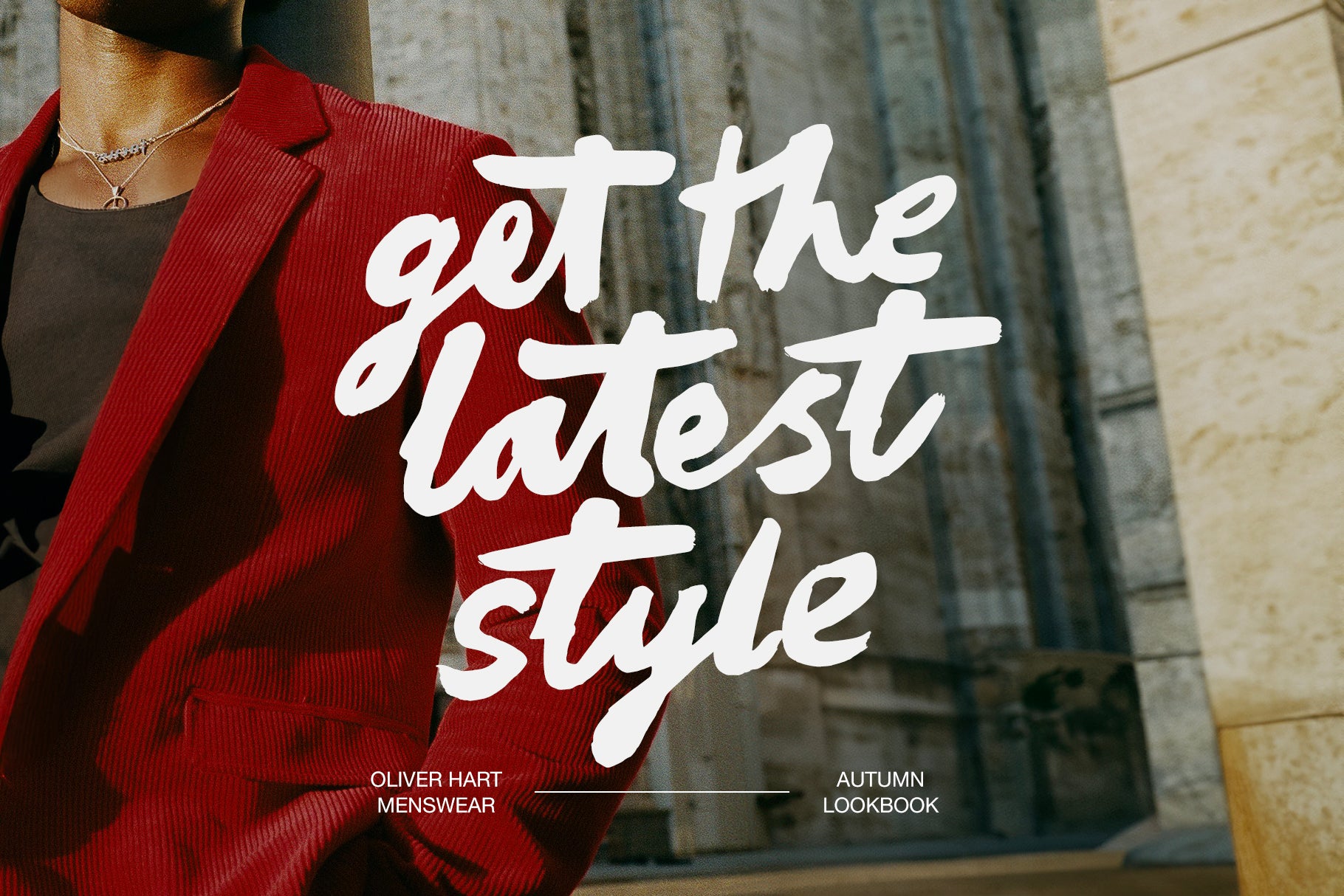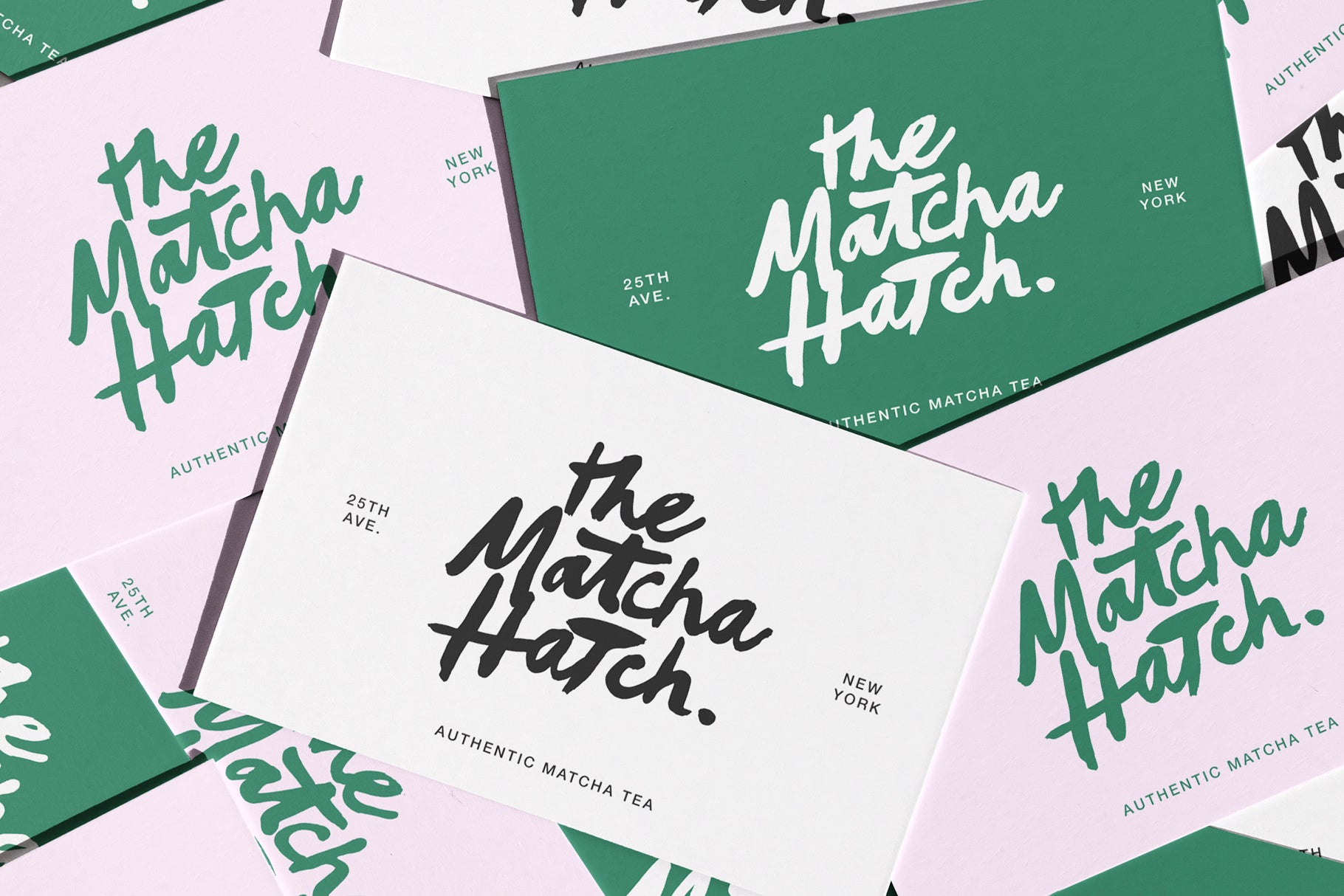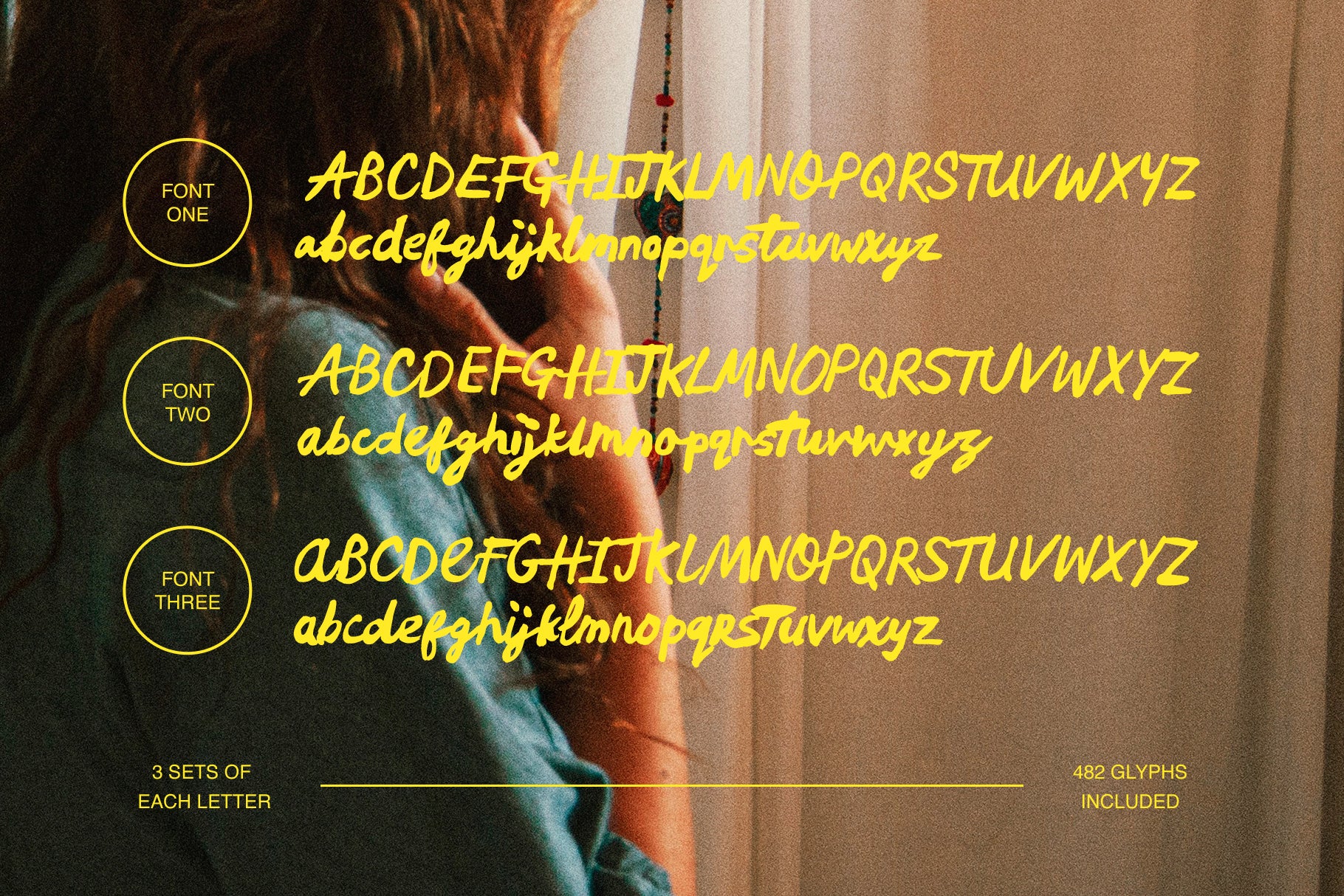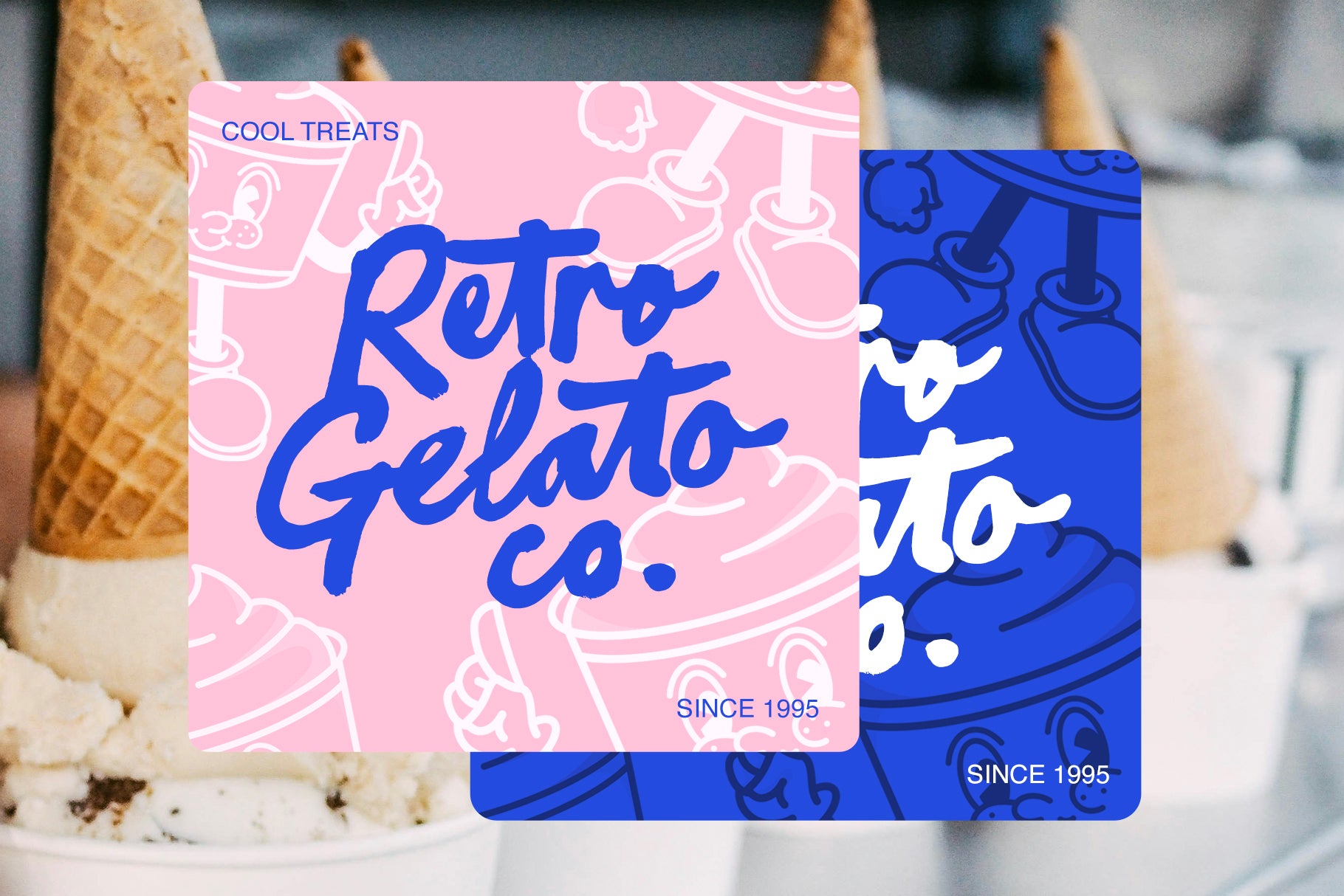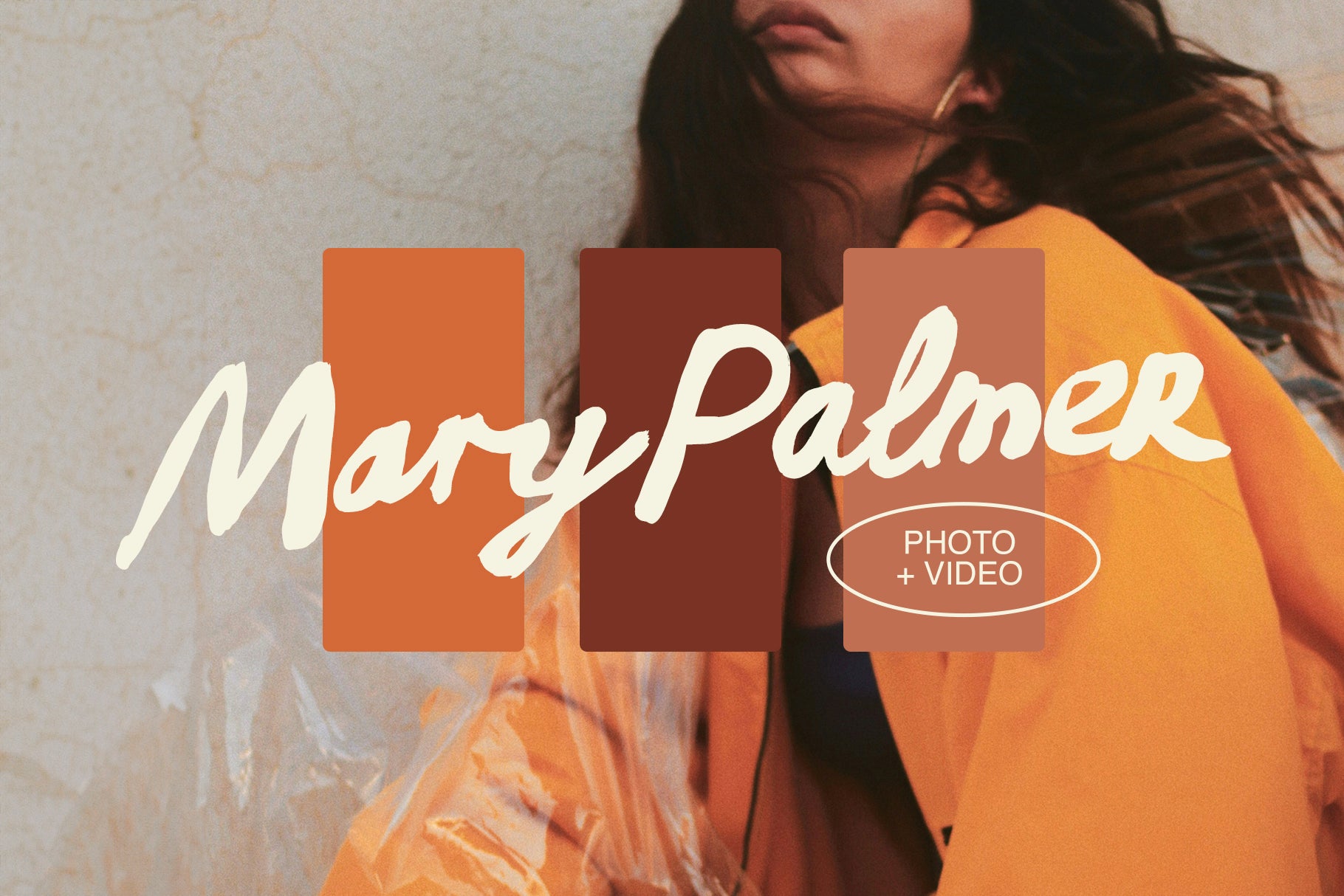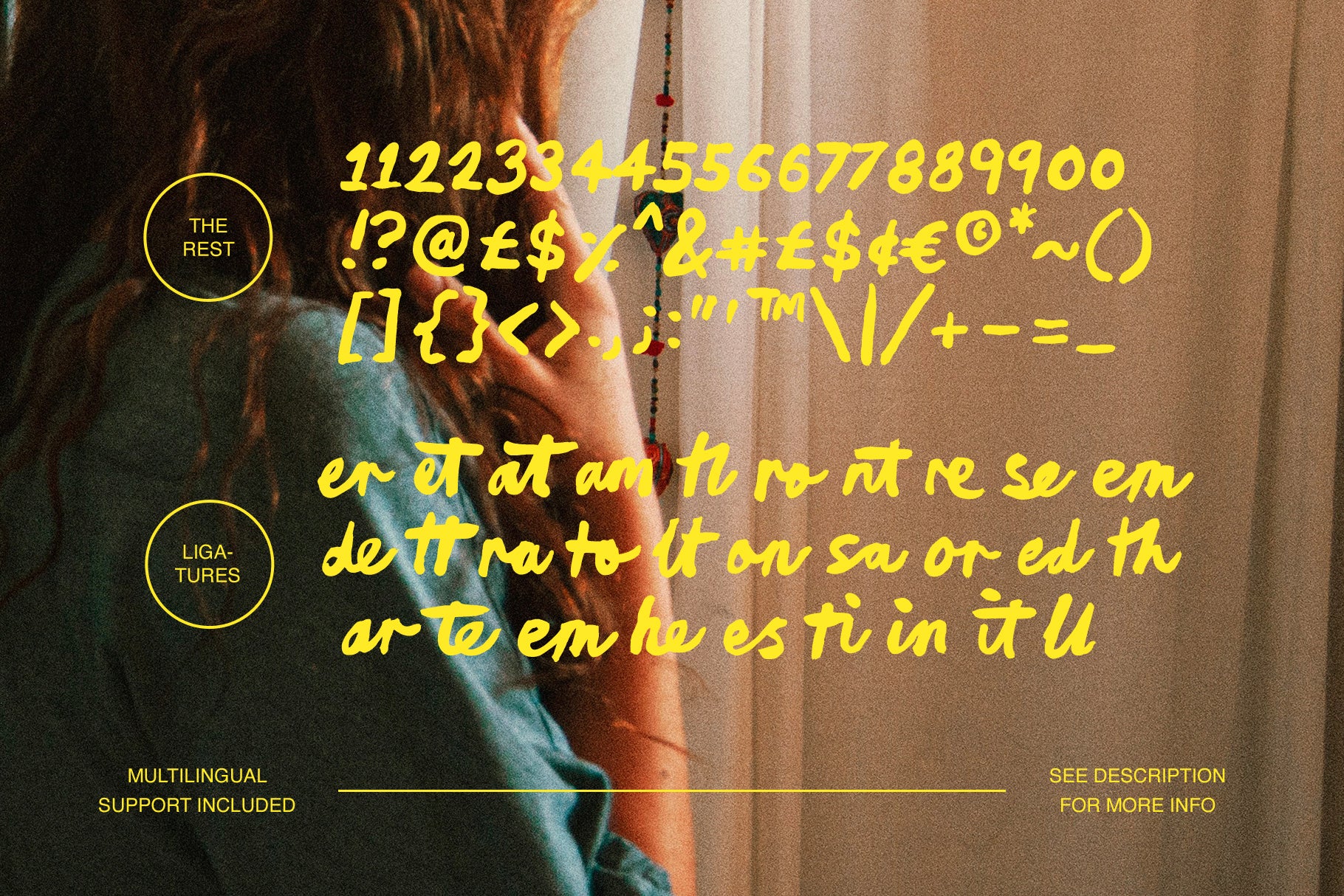
Amber Dawn Brush Font
Amber Dawn Brush Font is a bold, hand-painted brush font featuring three sets of upper and lowercase characters, 29 ligatures, and a total of 482 glyphs, including numerals and punctuation. It offers multilingual support for various languages and is PUA encoded for easy access to all characters in compatible software.